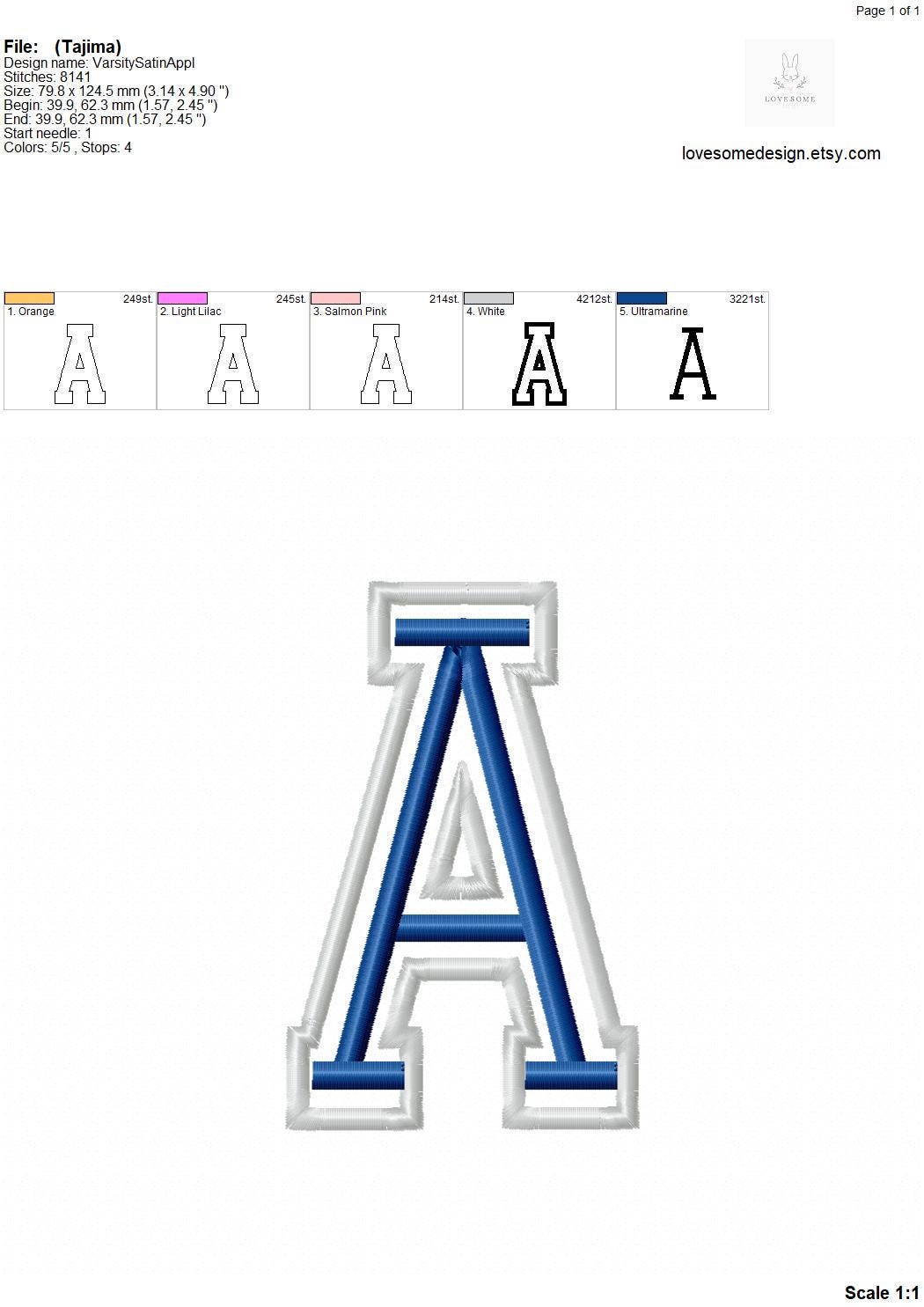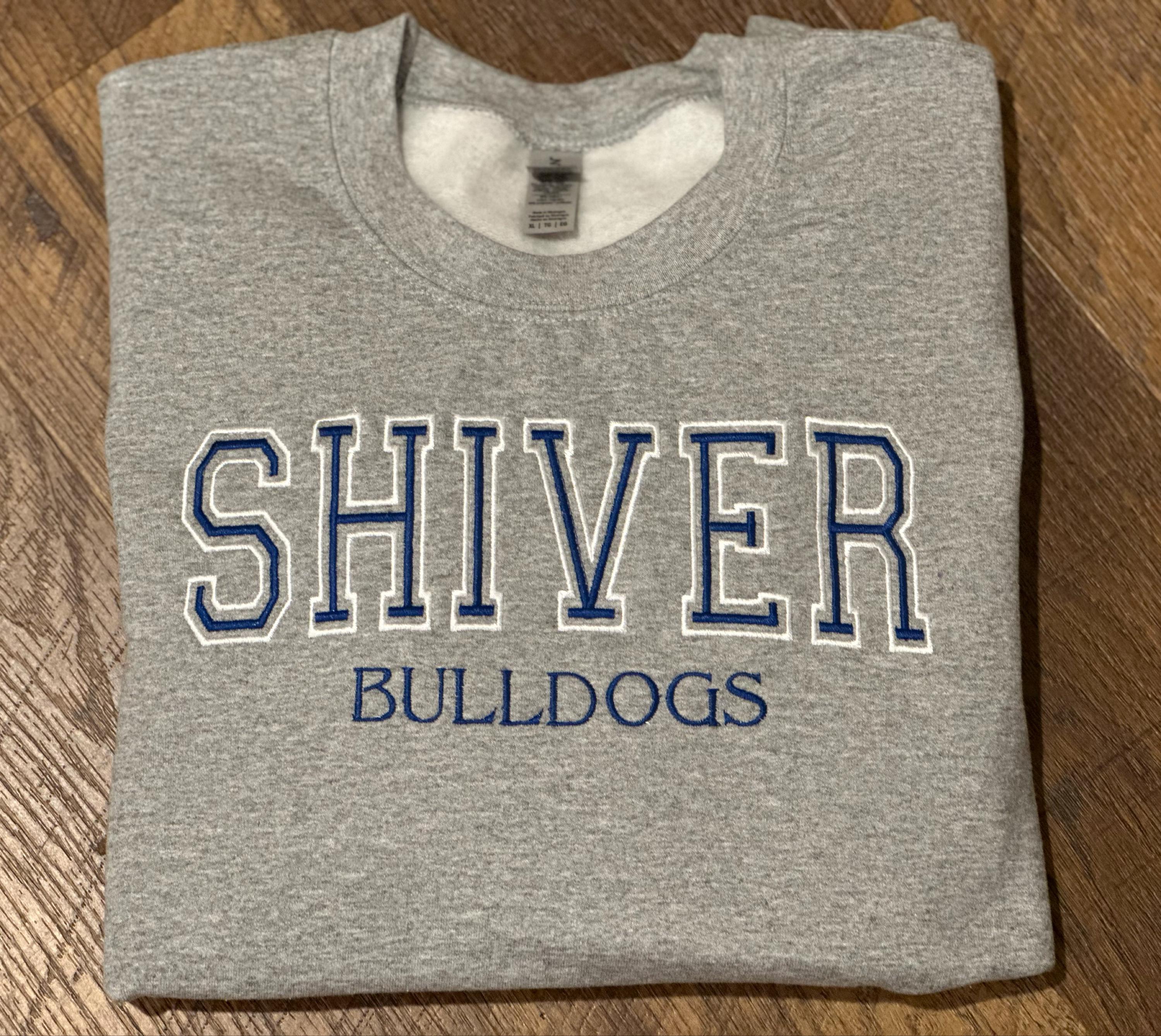
College Applique Satin 5inch Font A-Z Machine Embroidery Sports Letters, Applique Varsity Embroidery Font | Lovesome Design
This listing features a machine embroidery font set for satin stitch embroidery which includes embroidery files of 26 applique uppercase letters in 5inch size. (For the whole set, pls see the listing images.)
The stitching order can be seen on the technical data sheet given in our listings images. The first 4 stitching steps are for the applique. After the applique is complete, you stitch the last step for the satin stitch letter on the top.